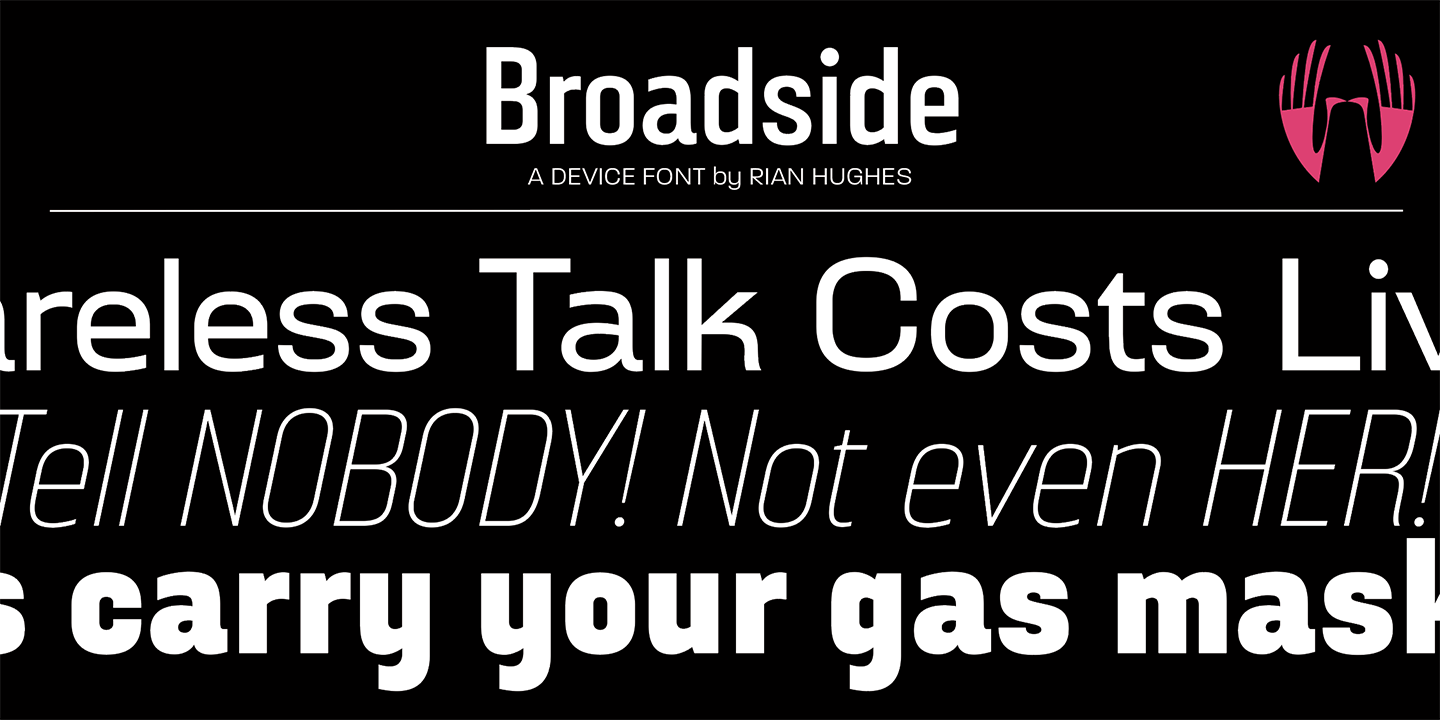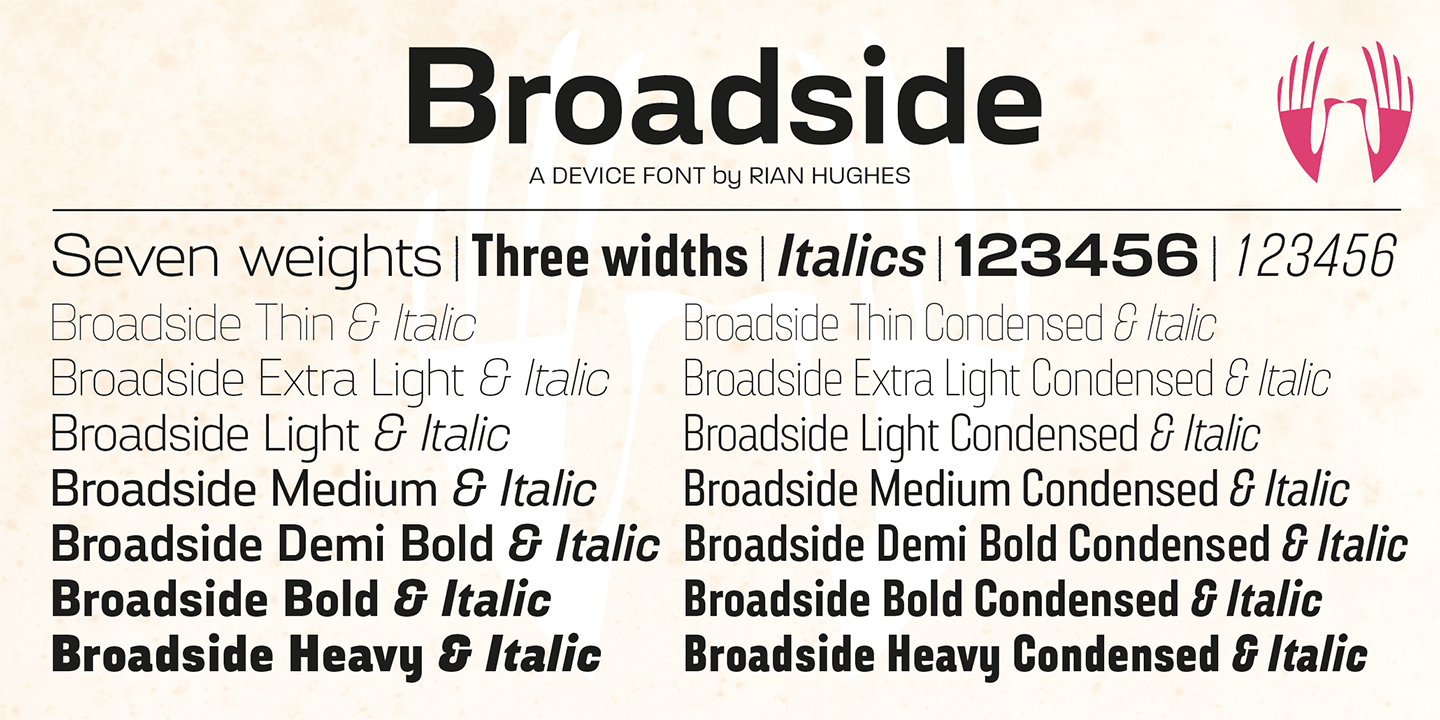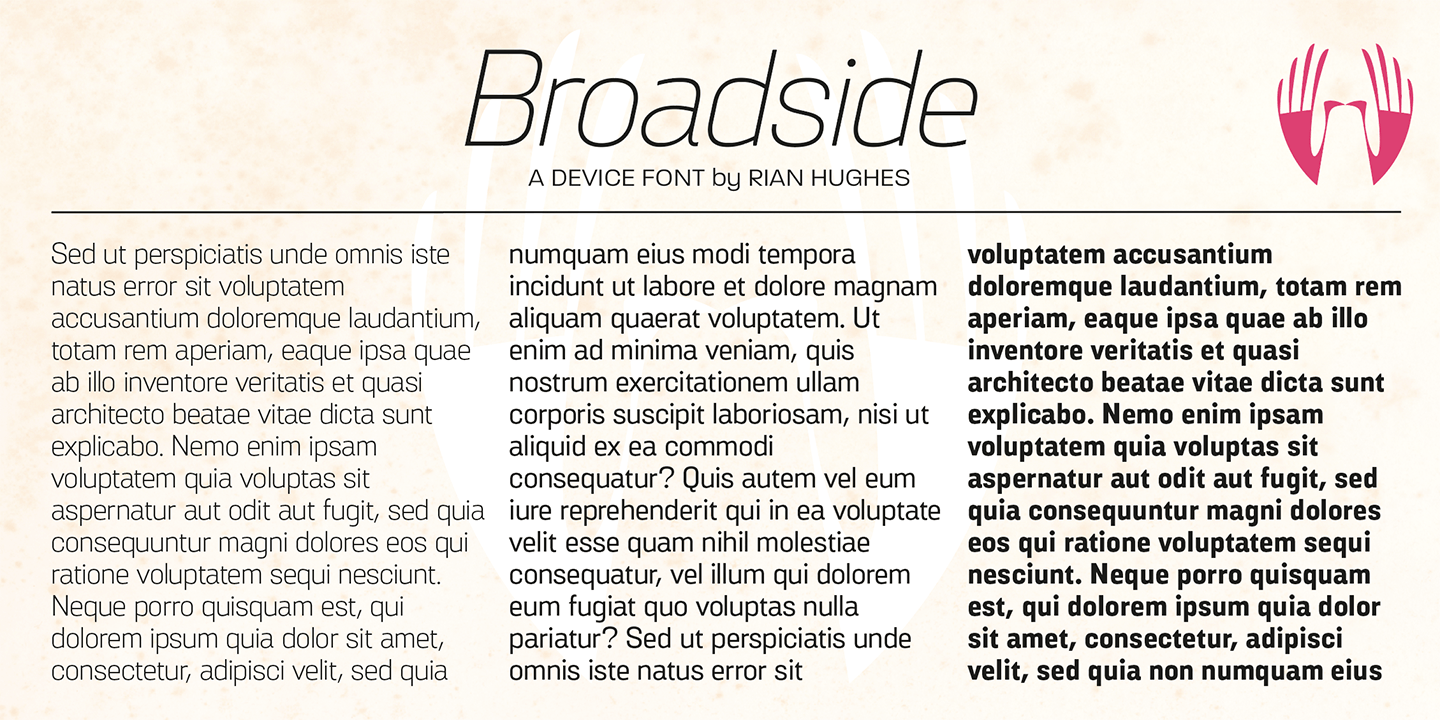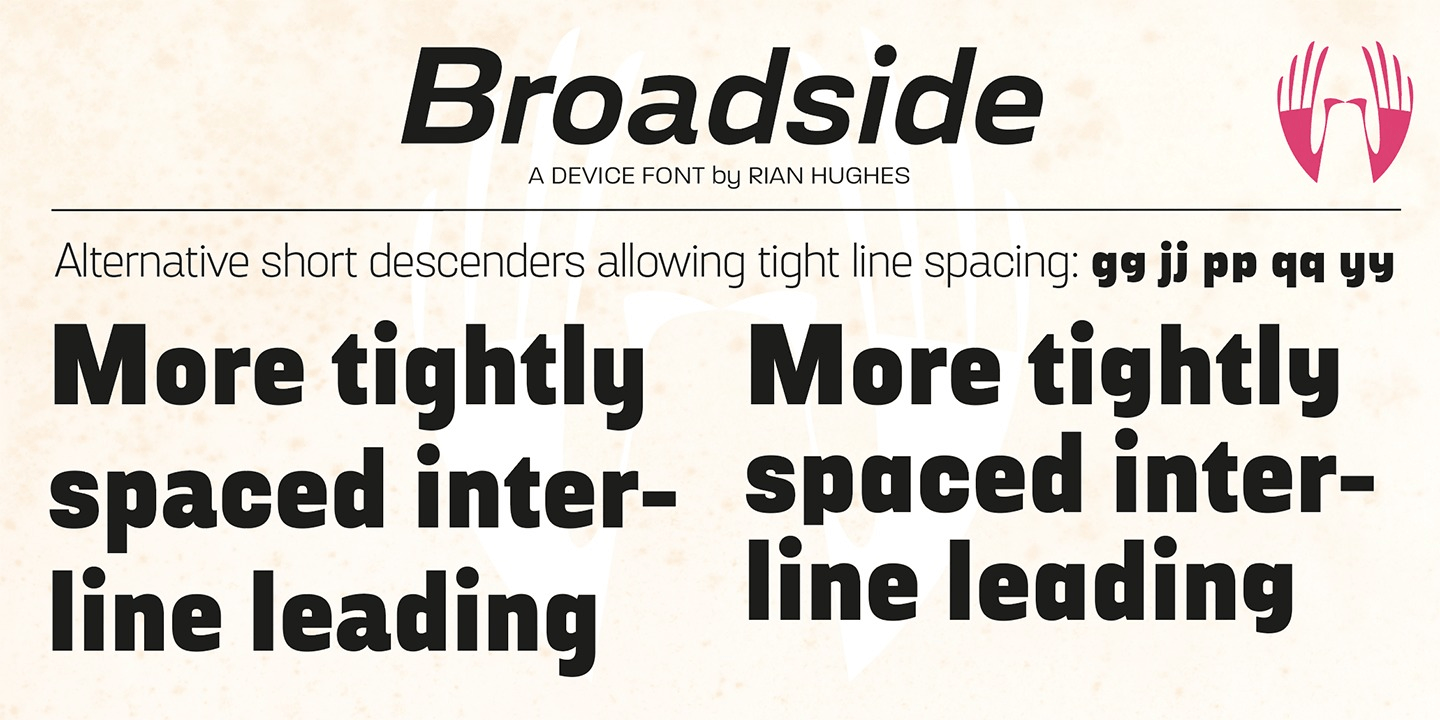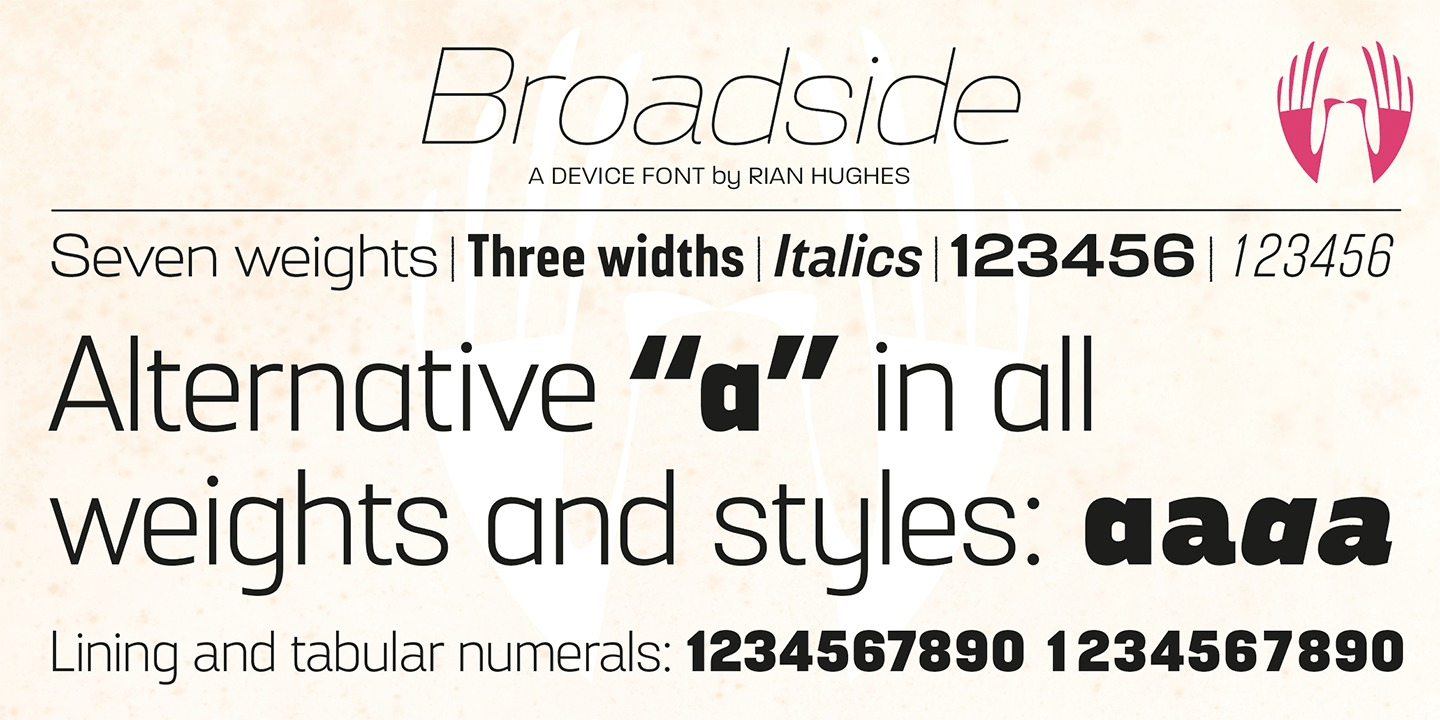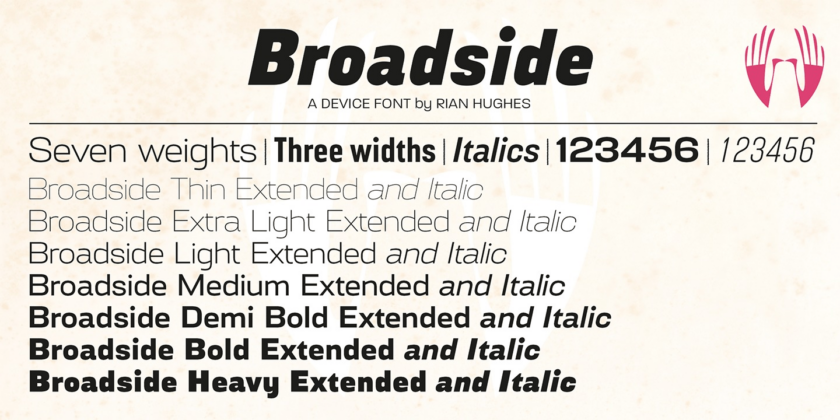
About Broadside
Broadside is a versatile, authoritative and functional family inspired by the sans serifs seen on ?40s and ?50s patriotic posters and period advertising. It is available in seven weights across condensed, normal and extended widths, each with reweighed…